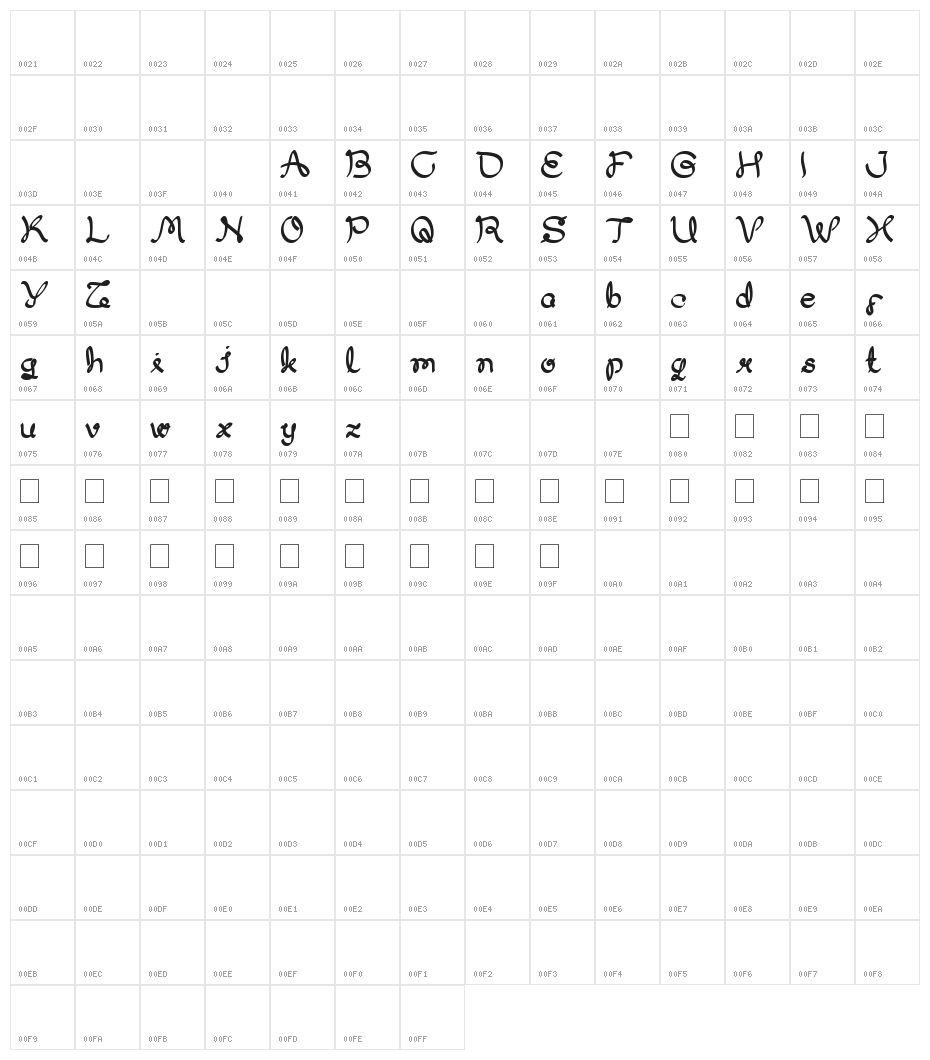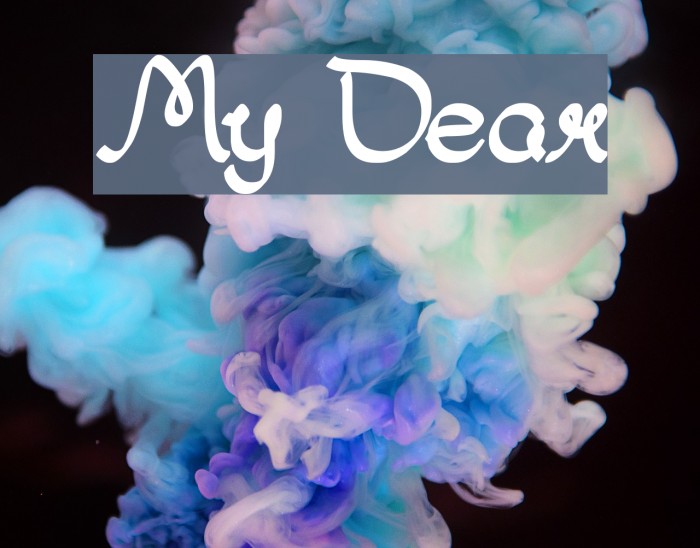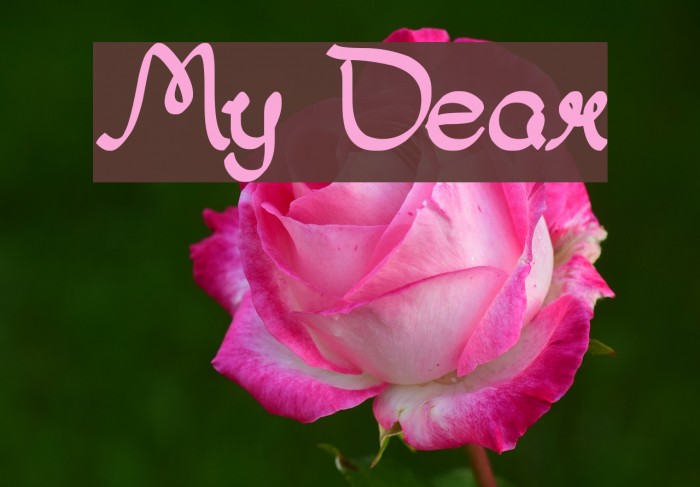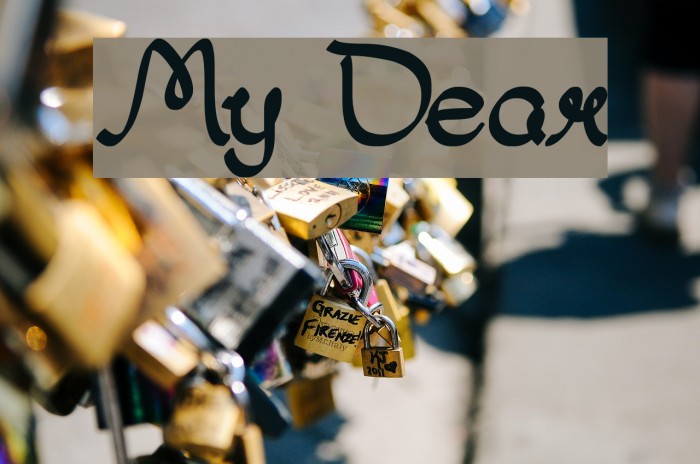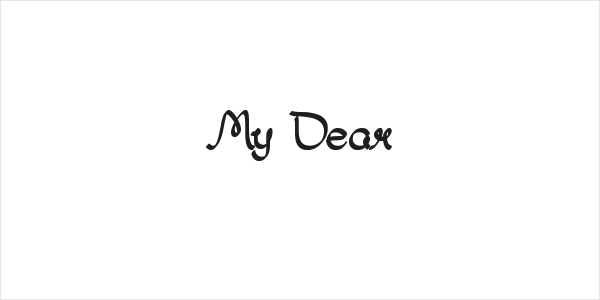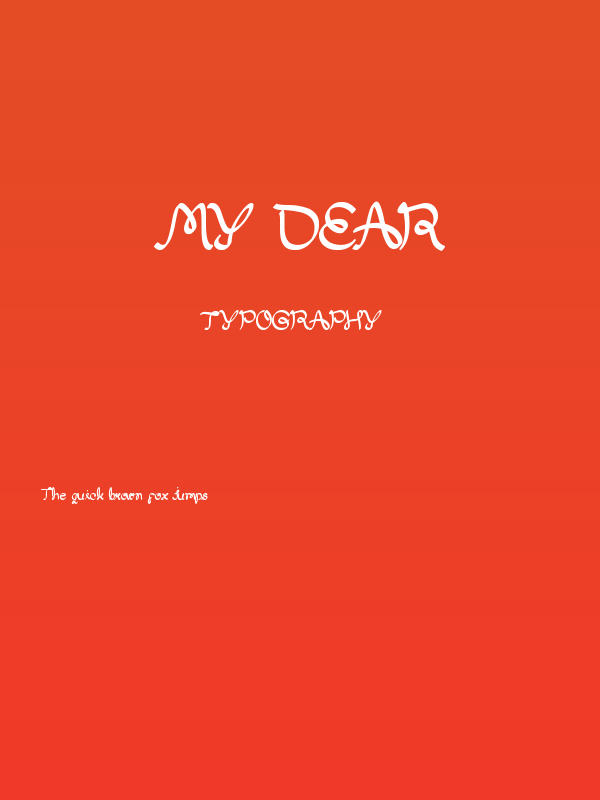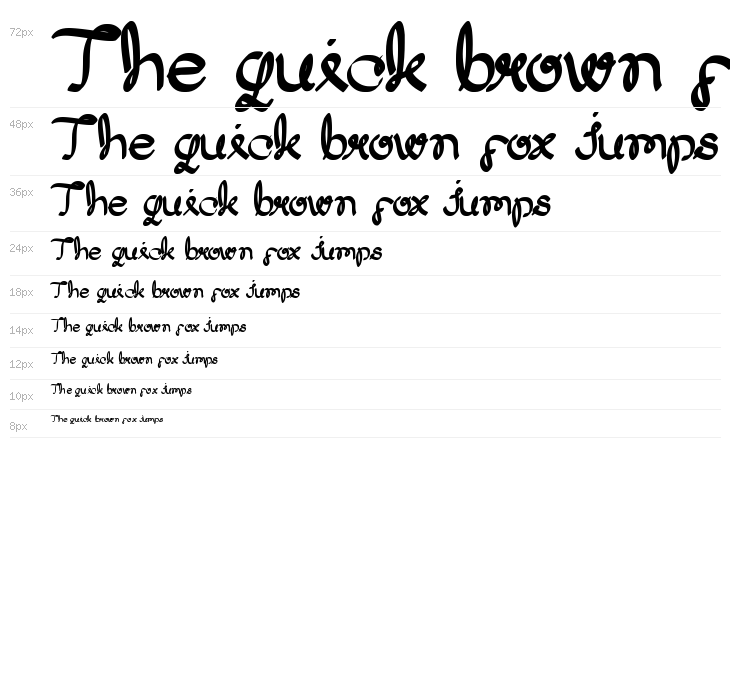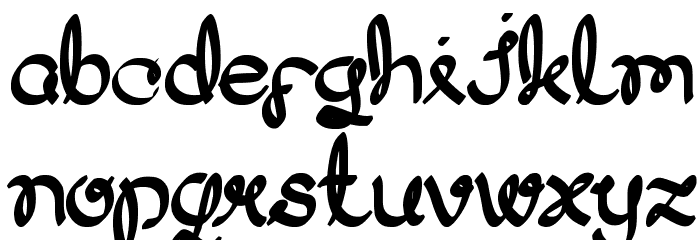
My Dear Font
My Dear Description
This font features a unique and artistic design, characterized by its flowing, interconnected strokes that give it a whimsical and playful appearance. The letters are crafted with a sense of movement, as if they are dancing across the page. The uppercase and lowercase letters maintain a consistent style, with loops and curves that add a decorative flair. The font's boldness is evident in its thick strokes, which provide a strong visual impact. The overall style is reminiscent of calligraphy, with a modern twist that makes it suitable for creative projects.
| Proposed Projects | Ideal for invitations, greeting cards, artistic posters, and branding that requires a playful yet elegant touch. |